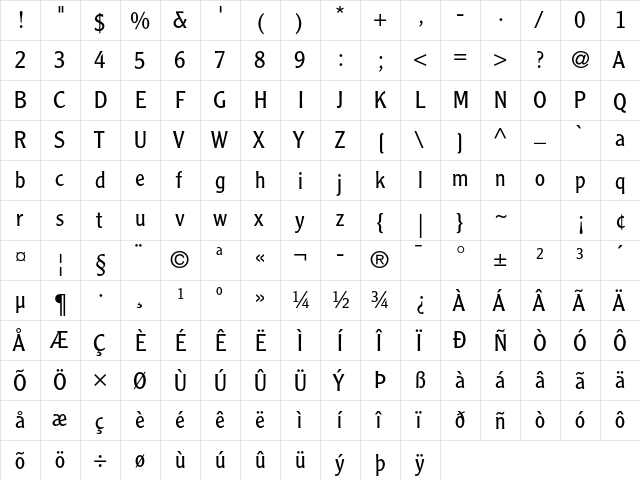
Clearface Gothic LT Std 45 Light
| Designer | Morris Fuller Benton |
Design Context for Clearface Gothic LT Std Typeface
Clearface Gothic LT Std takes a clean, functional approach — its unadorned letterforms prioritise legibility and work reliably across screen and print environments. Its slender proportions lend an understated elegance to any composition.
A natural fit for high-end product packaging, luxury brand identities, and refined web typography.
Font Pairing: Pair Clearface Gothic LT Std with a medium or bold serif for headlines — the weight contrast creates an elegant, high-end feel.
Pro Tip: Use Clearface Gothic LT Std with generous tracking and line-height for the most luxurious effect — light sans-serifs reward spacious, considered layouts.